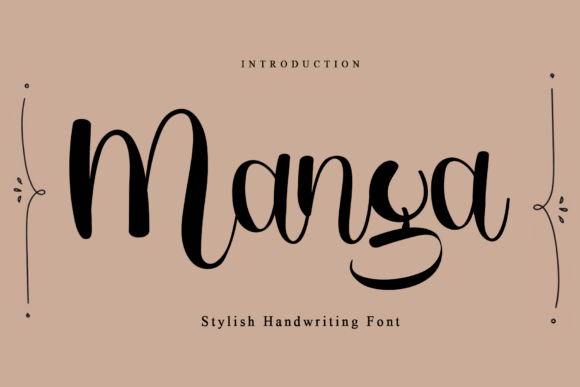
Manga Font Download Script Fonts: In the colorful world of typography, there’s a special category of fonts that don’t just deliver a message — they perform it. Manga Font is one of those show-stealers. With its groovy, retro-inspired curves and bold personality, it makes every word look like it belongs on a vintage poster, an old-school comic cover, or a psychedelic album sleeve.
If you’ve been searching for a typeface that bursts with personality and injects fun into your designs, Manga Font is here to deliver. It’s playful, charming, and brimming with character, making it the perfect choice for creatives who want to break free from the ordinary.
1. A Quick Snapshot: What Is Manga Font?
Manga is a fun and cute groovy font rooted in the retro era’s bold typography. Imagine the colorful 60s and 70s advertising posters, combined with the cheerful expressiveness of classic Japanese manga titles — and you’ll get a good sense of its energy.
Its key features include:
Chunky letterforms with rounded edges.
Groovy curves that give it movement and rhythm.
Bold presence that stands out in any layout.
Playful personality perfect for casual or creative designs.
Manga’s design naturally draws the eye, making it a go-to choice for titles, branding, and anything that needs an instant pop of happiness.
2. The Retro Inspiration Behind Manga
The “groovy” style of Manga Font isn’t a random aesthetic choice — it’s a direct nod to the typography trends of the 60s and 70s, when psychedelic culture, disco music, and hand-painted signage were the norm. These decades gave us fonts that were bubbly, bold, and impossible to ignore.
By mixing that groovy foundation with a modern polish, Manga becomes both nostalgic and current. Designers can channel the warmth of vintage art while still keeping their work fresh and relevant in today’s media landscape.
3. Where to Use Manga Font
Manga is not a shy font — it loves the spotlight. It’s best used in projects where fun, creativity, and visual punch are key.
Book Covers
Perfect for children’s books, retro-inspired novels, or playful nonfiction titles.
Posters & Flyers
Whether for concerts, school events, or art fairs, Manga’s bubbly charm makes it stand out.
Packaging Design
From candy wrappers to beverage labels, Manga screams “pick me!” on store shelves.
Merchandise
T-shirts, tote bags, mugs — Manga adds a cheerful twist that appeals to both kids and adults.
Branding & Logos
Great for cafes, toy stores, creative agencies, or any brand that embraces a playful vibe.
5. Perfect Font Pairings for Manga
Because Manga is so bold and decorative, it pairs best with simpler fonts that let it shine.
Manga + Poppins – Clean and modern sans-serif for body text.
Manga + Roboto – Readable, neutral partner for descriptions.
Manga + Libre Baskerville – Adds a classy serif balance.
Manga + Montserrat – Minimalist but friendly combo.
6. Why Designers Are Loving Manga
Manga’s popularity comes from its instant mood-lifting style. Here’s why it’s a favorite:
Retro meets modern – Vintage curves with fresh clarity.
Versatility – Works for kids’ brands, retro posters, and playful product packaging alike.
High impact – Demands attention without being overwhelming.
Fun factor – Injects joy into any project instantly.
7. Tips for Designing with Manga
To really let Manga work its magic:
Go big with headlines – This font loves large sizes where its curves can shine.
Experiment with bright colors – Think oranges, pinks, and teals for full retro effect.
Add texture – Vintage paper textures or halftone effects enhance the nostalgic feel.
Keep body text simple – Pair with minimal fonts to maintain readability.
8. Alternatives to Manga Font
If you enjoy Manga but want to explore similar fonts, try:
Groovy – A bubbly, 70s-inspired display font.
Luckiest Guy – Chunky, comic-style boldness.
Baloo 2 – Friendly rounded letters for a casual vibe.
Cooper Black – A timeless retro classic.
Q2: What type of designs is Manga best for?
Final Thoughts
Manga Font is more than just letters — it’s a retro celebration of fun, joy, and creativity. It channels the energy of a bygone era while still feeling right at home in modern design projects. If your work calls for a typeface that can make people smile, Manga delivers in bold, groovy style.
Whether you’re designing a product label, creating event posters, or branding a quirky café, Manga brings a unique charm that’s impossible to ignore. Download it, play with color, and let this groovy star steal the show in your next design.